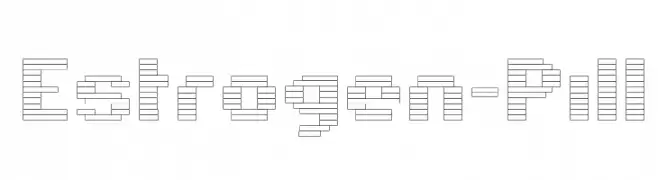
A geometric, block-like font with a modern, digital appearance.
A pixelated, striped font with a retro digital aesthetic.
A bold, geometric font with a futuristic, digital style.